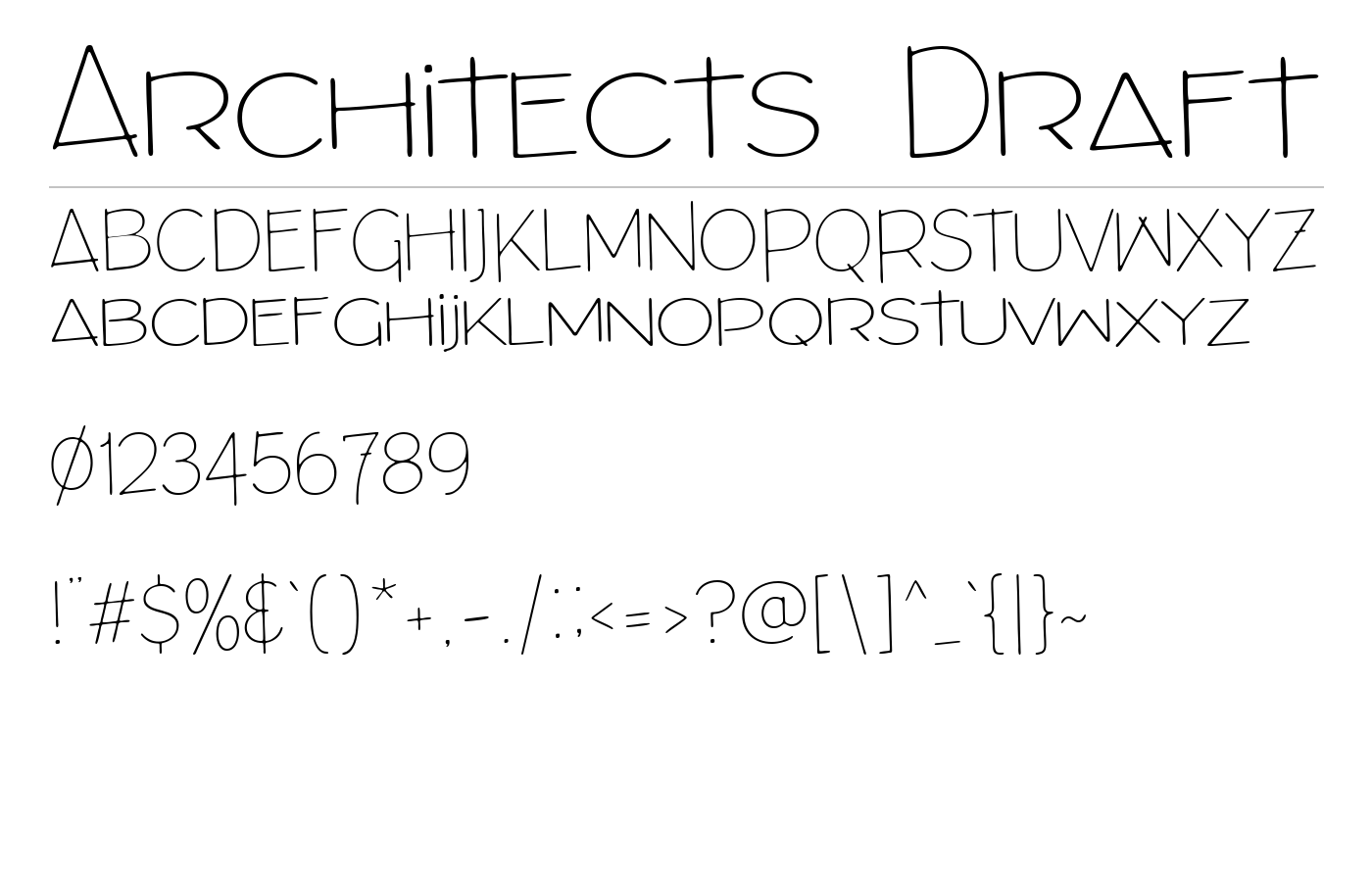
Architects Draft is a quirky, hand-drawn sans serif font with a light weight and narrow width, featuring tall, slender characters with playful irregularities and simple geometric shapes. Its informal and slightly technical feel makes it ideal for creative projects, architectural or design presentations, and casual branding that seeks a friendly yet distinctive look. This font works best in headlines, logos, and short texts where a unique, handcrafted vibe is desired.
Architects Draft Font
About Architects Draft Font
| Designer | Michael Hassler |